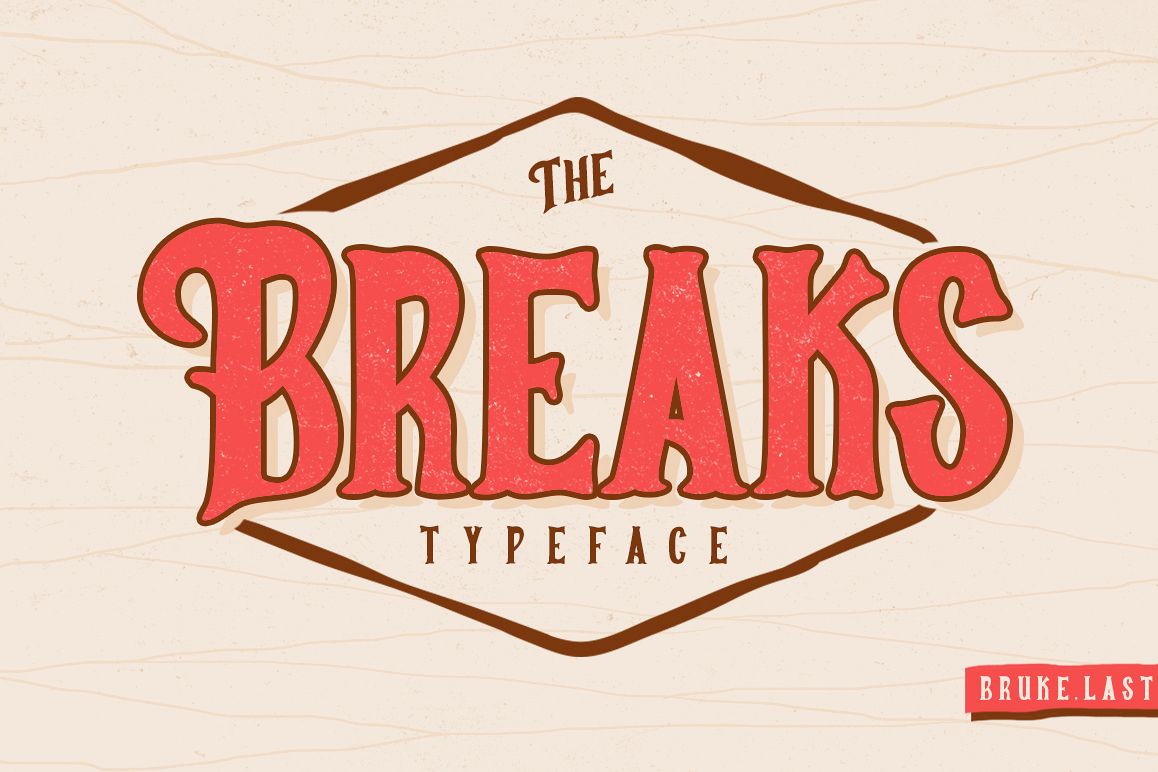
Breaks Typeface
Breaks-Regular
BREAKS TYPEFACE
A New Font Vintage Style. Breaks make it super Vintage Looks into your Graphic Design. Good for Logo, Display, Tittle, Banner.